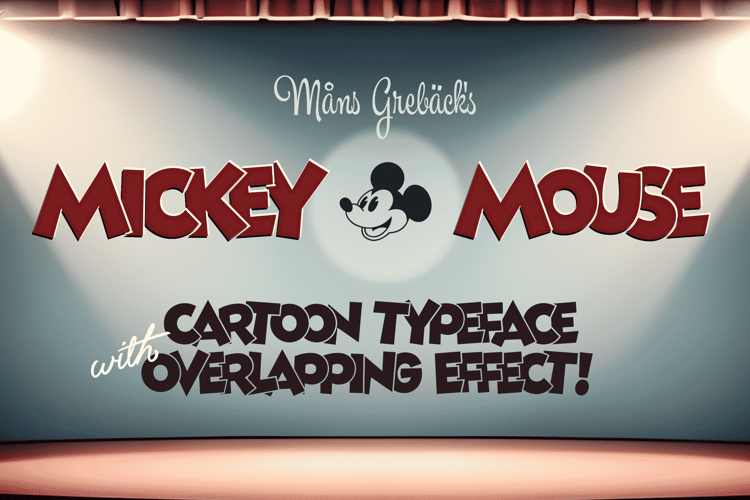
Mickey Mouse Line Font
About Mickey Mouse Line Font
Mickey Mouse is a delightful blend of humor and optimism, designed to capture the essence of classic cartoons.
Make sure to activate contextual alternates in your design software to make the letters overlap!